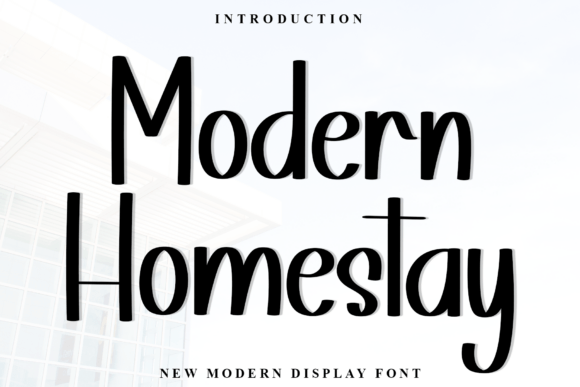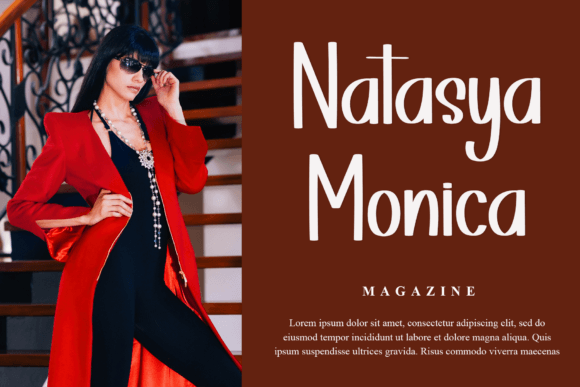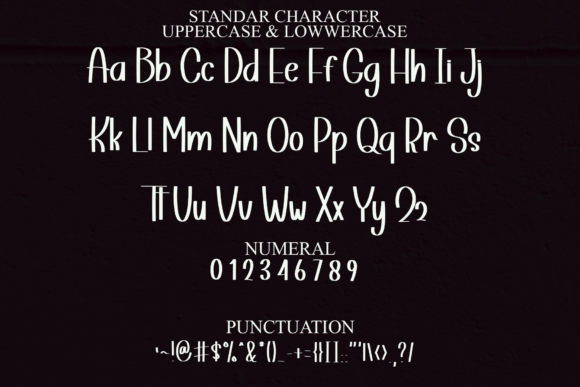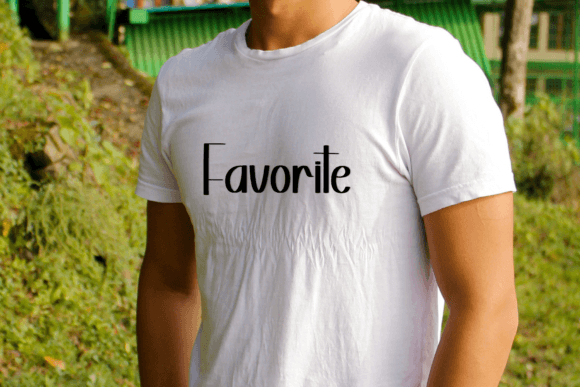
Modern Homestay Font
About the Modern Homestay Font
Crafted with precision, the Modern Homestay Font is ready to bring your ideas to life. Modern Homestay is a festive and merry typeface that captures the spirit of the holiday season. With its decorative elements and whimsical flair, it adds a touch of enchantment to your designs. Perfect for greeting cards, gift tags, and holiday-themed projects, this font brings a cheerful and nostalgic ambiance to your words. Let your typography shine with the magic of Beautiful Font!
Modern Homestay’s playful energy makes it ideal for headlines, short marketing copy, and festive branding projects. It works exceptionally well on packaging for gifts or seasonal products, and adds a charming touch to posters and social media graphics. However, its decorative nature makes it unsuitable for body text or UI elements where readability is paramount. Avoid using it for long paragraphs or situations requiring high levels of legibility.
To balance its whimsicality, pair Modern Homestay with a clean sans-serif like Open Sans for body text or a classic serif like Garamond for a more sophisticated feel. A simple geometric sans-serif such as Montserrat could also provide a strong, modern counterpoint.
The font’s overall personality is cheerful and nostalgic, making it perfect for brands aiming for a friendly and approachable image, particularly those associated with warmth, tradition, or handcrafted products.
Modern Homestay Font Usage Examples
Modern Homestay Font Example